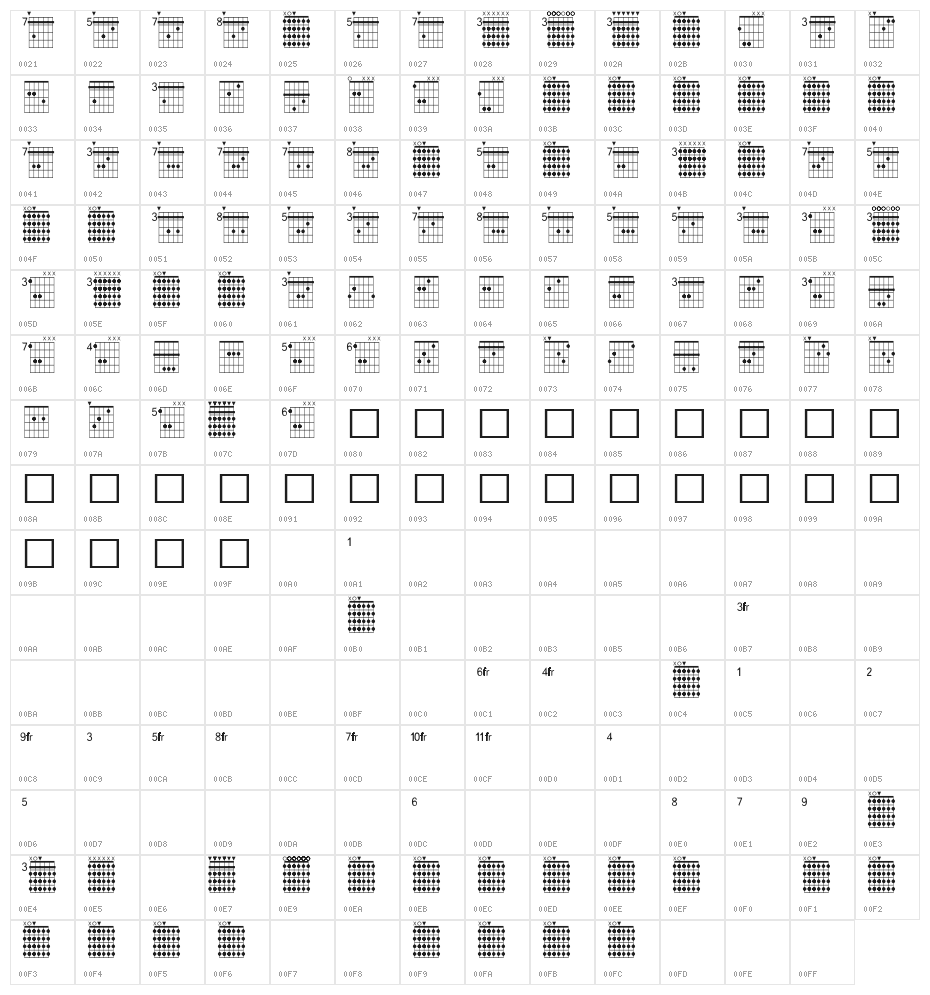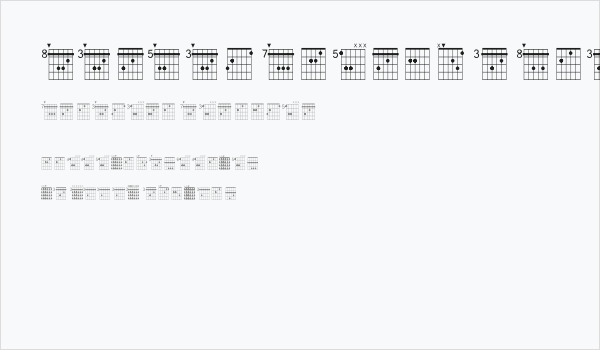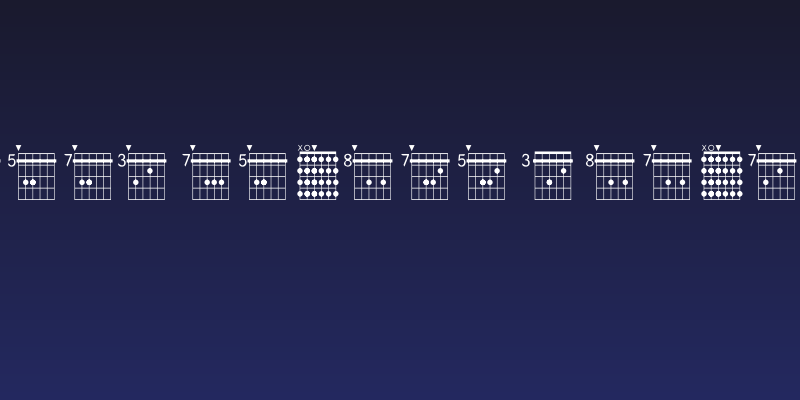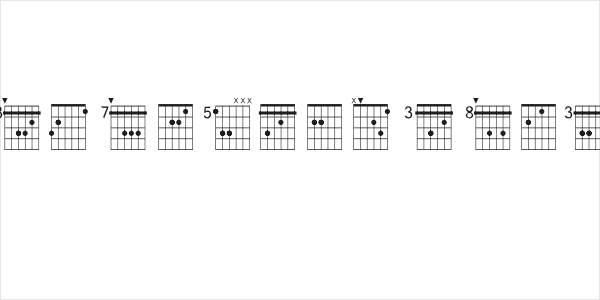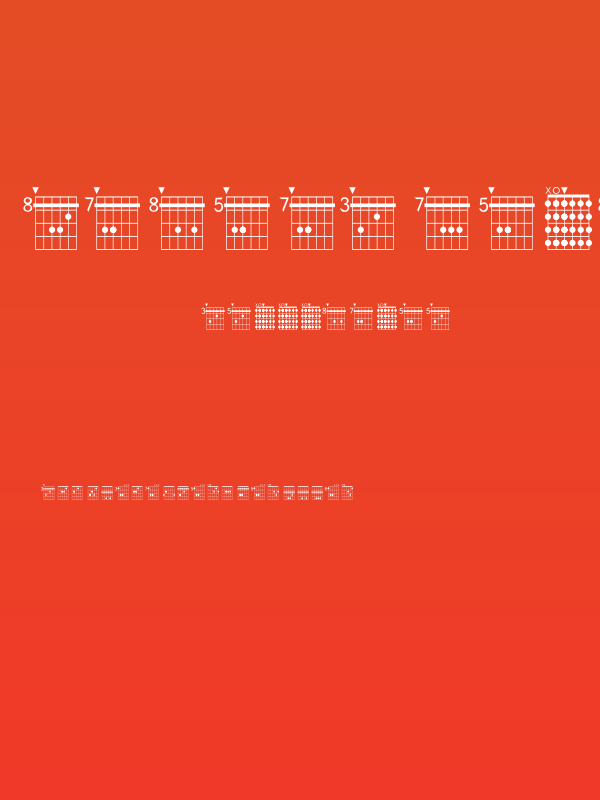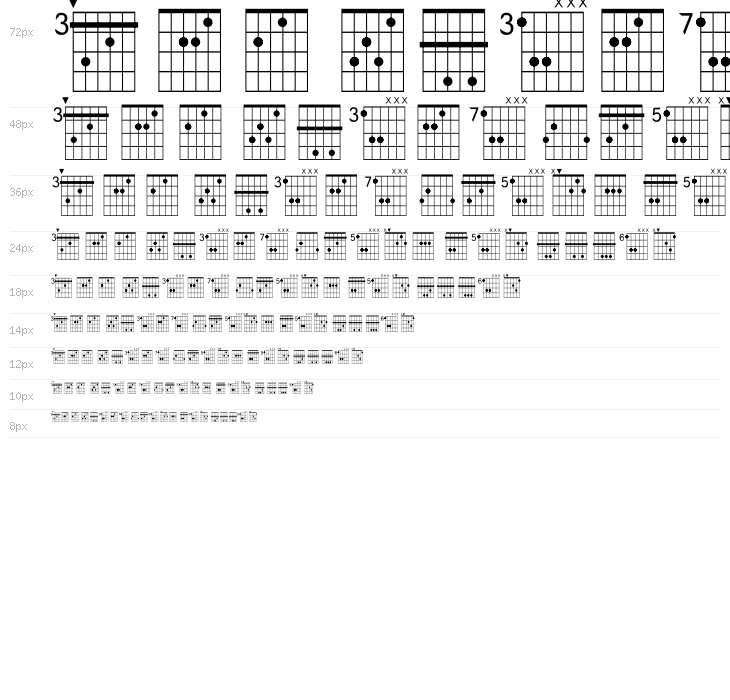
FarHat Chords 1 Regular Font
FarHat Chords 1 Regular Description
A specialized pictorial font featuring guitar chord diagrams, each enclosed in a rectangular grid with dots, numbers, and symbols indicating finger positions and muted/open strings. The glyphs are highly legible and uniform, designed for clear musical notation rather than traditional text.
| Overall Style | Functional, Educational, Pictorial |
| Use Case | Chord diagrams, Music notation, Educational resources |
| Proposed Projects | Guitar tablature books, music education materials, chord charts, instructional posters. |